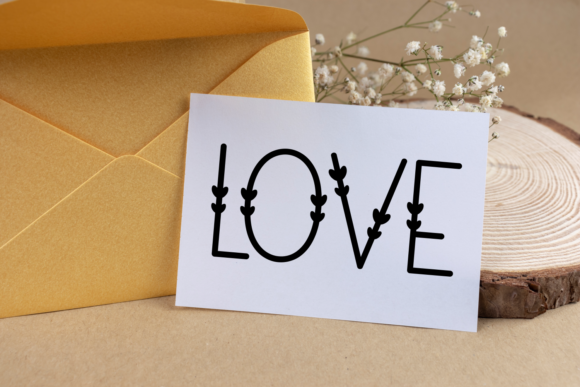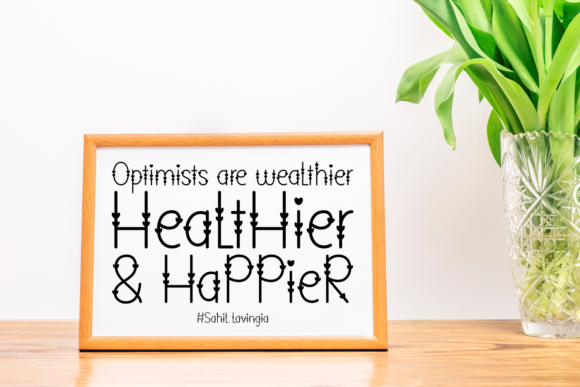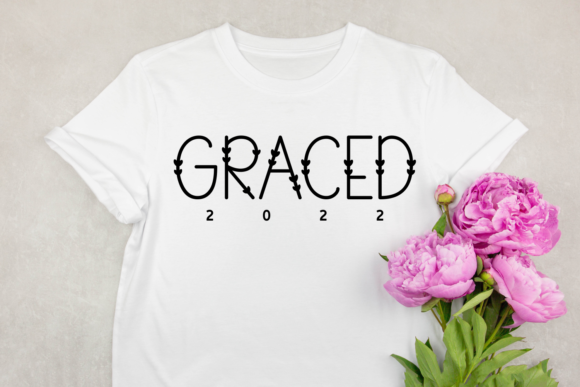
Introduction to Respect Mother Font
Respect Mother is a lovely handwritten font with pretty heart details on each character.
This gorgeous display font itโs suitable for Valentine cards, wedding invitations, save-the-date cards, branding, fashion, clothing designs, t-shirts, logos, etc .
Key Features of Respect Mother Font
Why Choose Respect Mother Font?